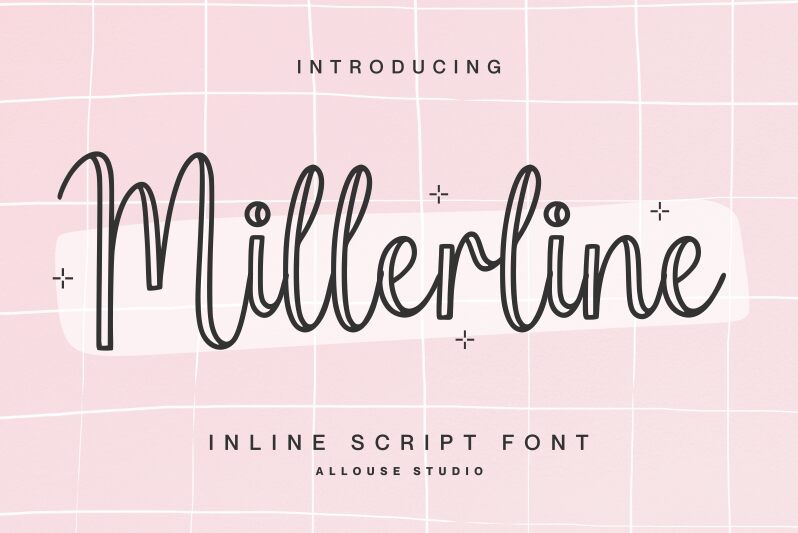
Millerline
Millerline, the stunning inline script font designed by Allouse Studio, is the perfect choice for projects that require a touch of elegance and sophistication. With its semi-light weight and flowing lines, Millerline adds a romantic and whimsical feel to any design. Its intricate details make it ideal for invitations, greeting cards, and wedding stationery. However, this versatile font can also be used in branding materials such as logos, packaging designs, and advertisements. Whatever your project may be, Millerline will surely leave a lasting impression with its unique style and charm.